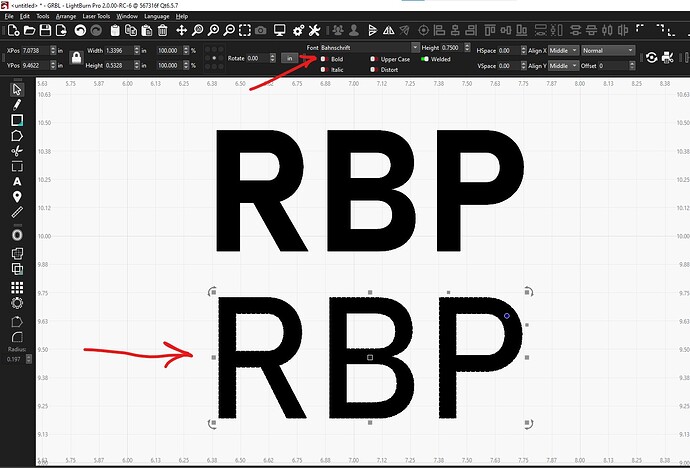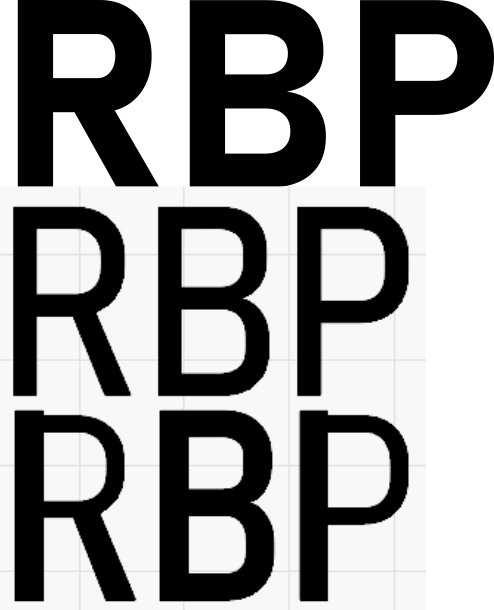
Font not displaying correctly
I have version 1.7.08 (also did the same with 1.6.0) and the .ttf font Bahnschrift (which I believe comes with windows) doesn’t display the R and P characters correctly in bold. It looks like only part of the letters is bolded
Any thoughts? The top is bold in inkscape, the middle is not bold in Lightburn, and the bottom is bold in lightburn.
I can confirm that I also see this with the same font on version 1.7.06. Looks fine in Affinity Designer.
I experienced this issue with version 1.7.08, but it seems to be resolved in version 2.0.00 RC-6.
These are the results from version 2.0.00.